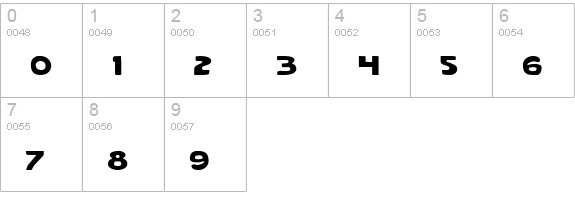
Quartermain Font Details
Quartermain is a breathtakingly beautiful font that effortlessly combines elegance with a touch of playfulness. Its sophisticated and stylish design will instantly captivate the eye and add a touch of charm to any project. The graceful curves and unique letterforms of Quartermain make it the perfect choice for a wide range of purposes, from branding and advertising to invitations and social media graphics. What sets Quartermain apart is not just its stunning aesthetic, but also its versatility. Whether used for headlines, body text, or accents, this font adapts seamlessly to any context, enhancing the overall visual appeal of your design. And the best part? Quartermain is available for free download exclusively at FontsMarket.com. That's right – this extraordinary font can be yours without spending a dime. So, why wait? Add Quartermain to your font collection today and unlock a world of creative possibilities.